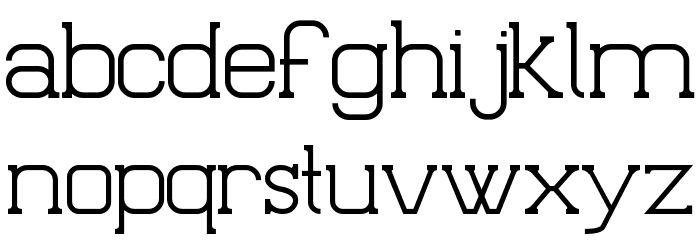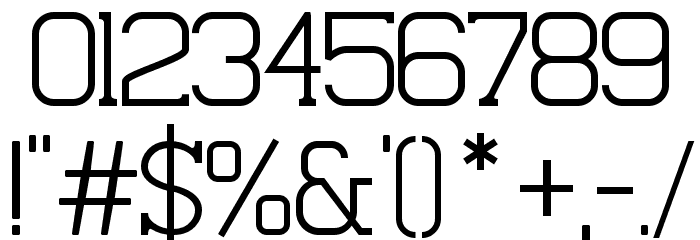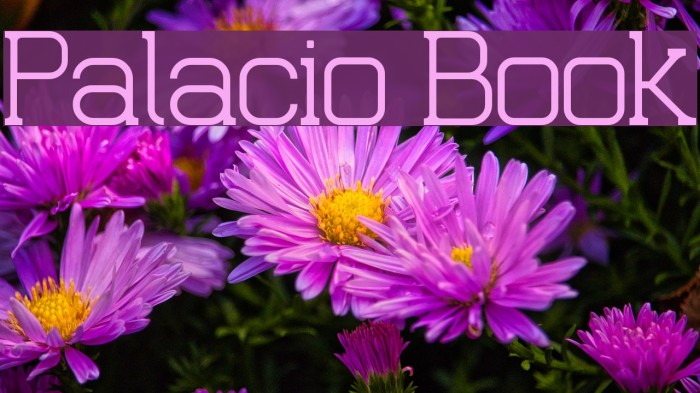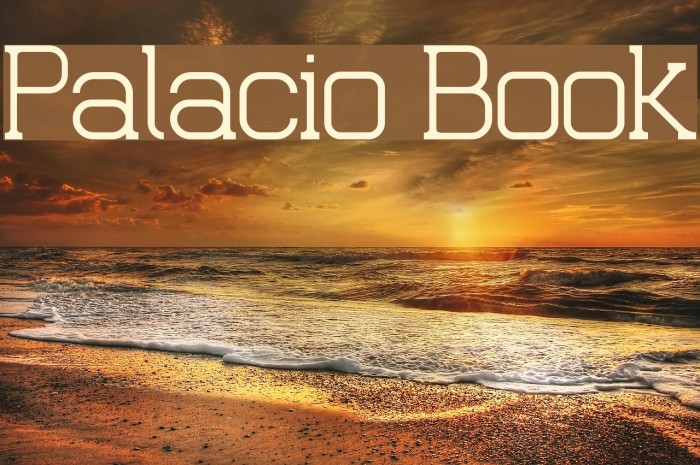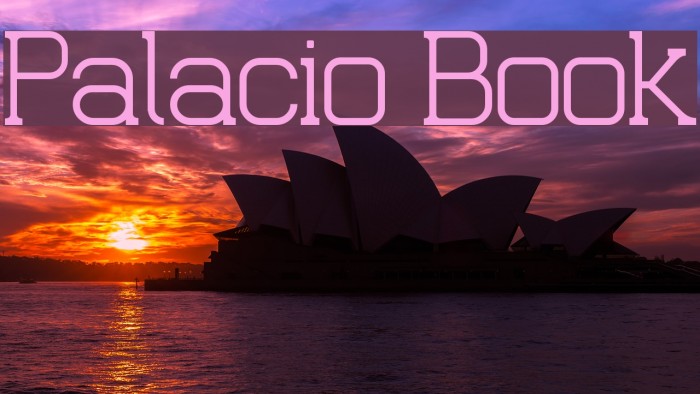
Palacio Book Font
This font features a modern and clean design with a geometric structure. The characters are well-balanced with a consistent stroke width, giving it a uniform appearance. The uppercase letters are tall and slightly condensed, while the lowercase letters maintain a similar width, creating a harmonious look. The numerals are clear and legible, matching the style of the alphabet. Special characters are distinct and integrate seamlessly with the rest of the typeface. The overall design is versatile, suitable for various applications where clarity and modernity are desired.
A modern, geometric font with consistent stroke width and clean design.
- Proposed Projects: Ideal for branding, editorial design, web design, and advertising where a modern and clean aesthetic is required.